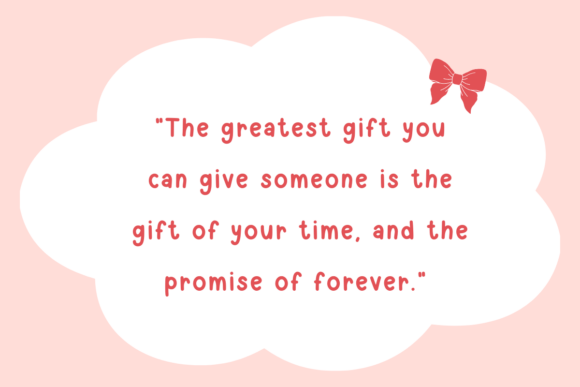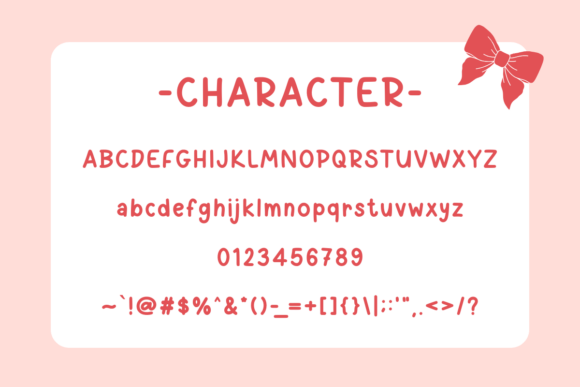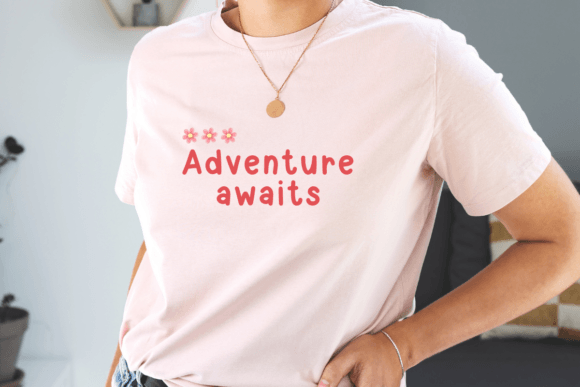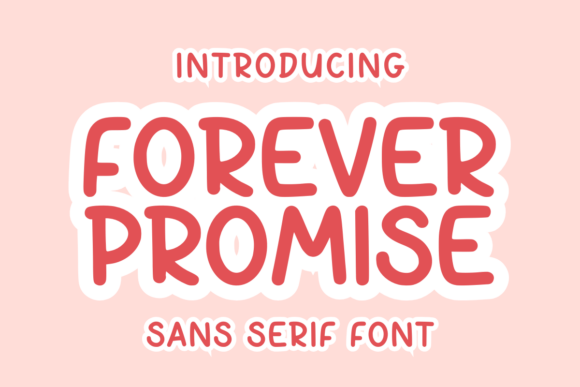
Introduction to Forever Promise Font
Forever Promise is a clean and modern sans serif font with a friendly feel.
Its smooth, simple letters make it easy to read, perfect for logos, posters, or social media designs This font adds a stylish and welcoming touch to any project.
Key Features of Forever Promise Font
Why Choose Forever Promise Font?
Forever Promise Font offers exceptional quality and versatility, making it a valuable addition to your design toolkit. Whether you’re creating for personal projects or commercial use, Forever Promise Font delivers professional results.